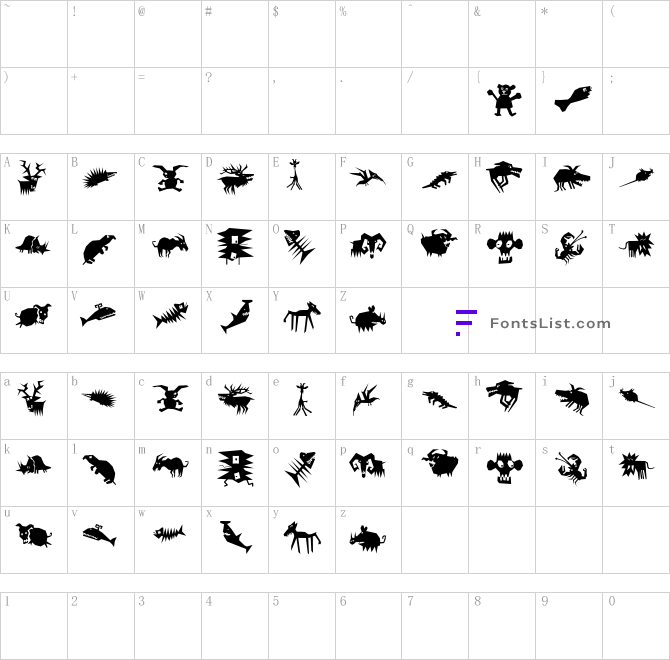
- Font Name:AnimaliaScissored
AnimaliaScissored.ttf is a very beautiful artistic font, AnimaliaScissored.ttf is widely used in the design and printing of various books and pictures,AnimaliaScissored.ttf has a strong visual impact,AnimaliaScissored.ttf is a commonly used font in newspapers, magazines and books, and is used in posters, e-commerce Poster design, store design, logo design, font design and other fields.AnimaliaScissored.